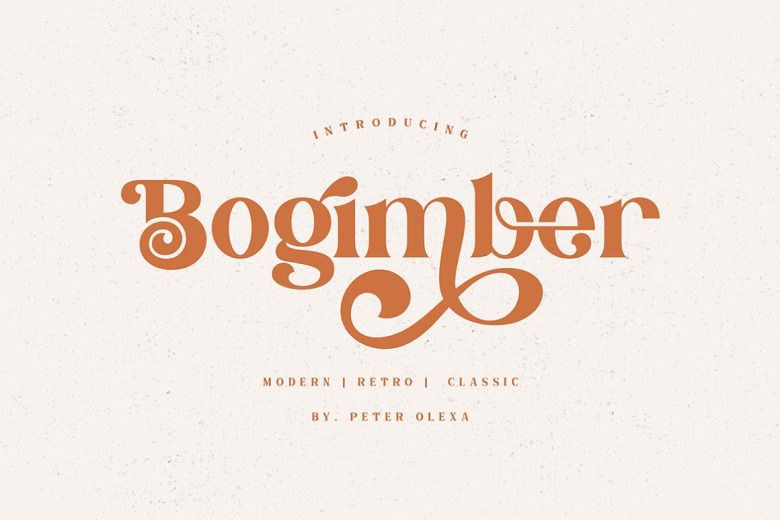
Bogimber Font
Trendy, elegant & artistic luxury retro & modern style serif font for your fancy project. Elegant fashionable playful style Bogimber font is the best choice for any type of branding project. Combine with Lot of alternates and ligatures, this font will help you create a beautiful original design like no other!
Bogimber Serif Font